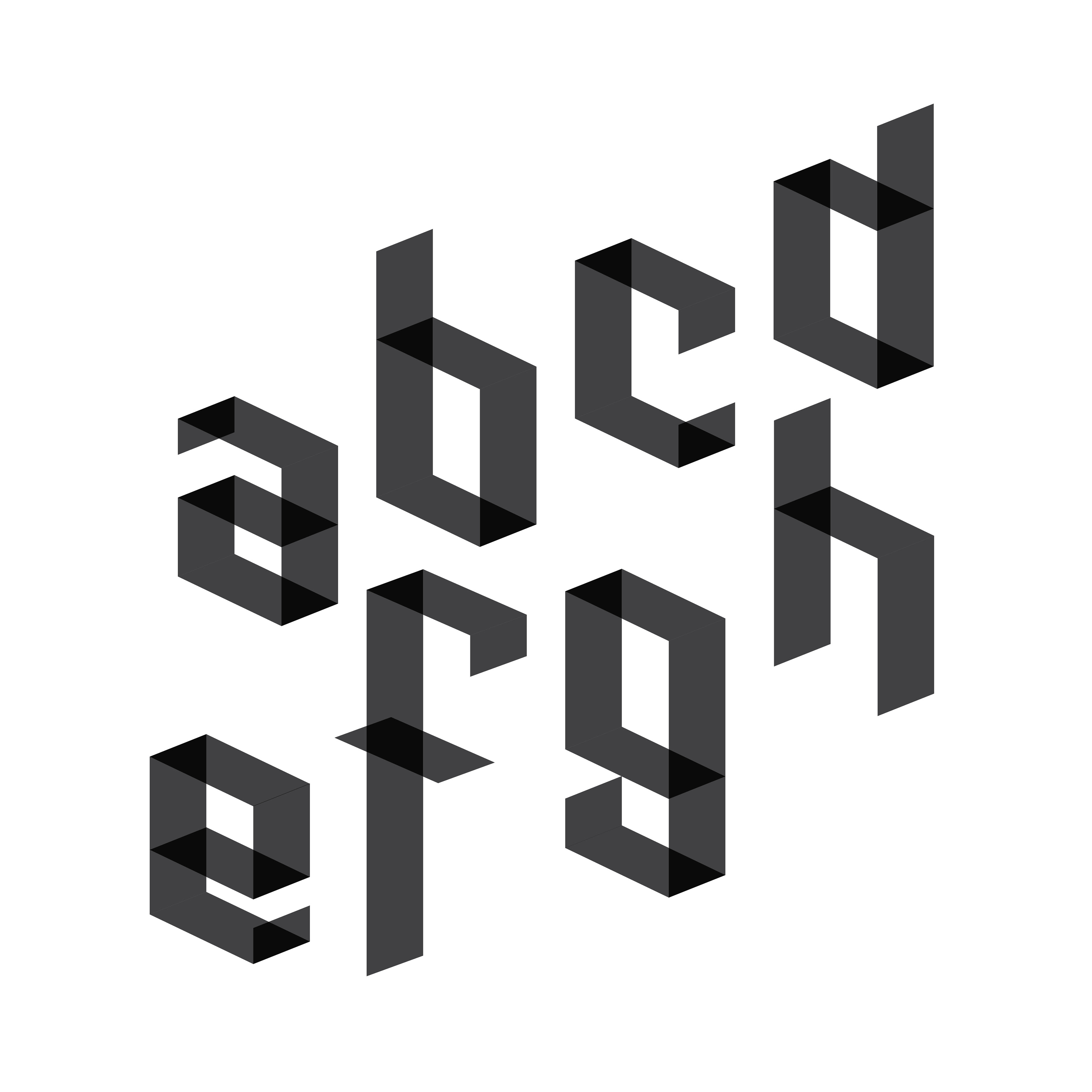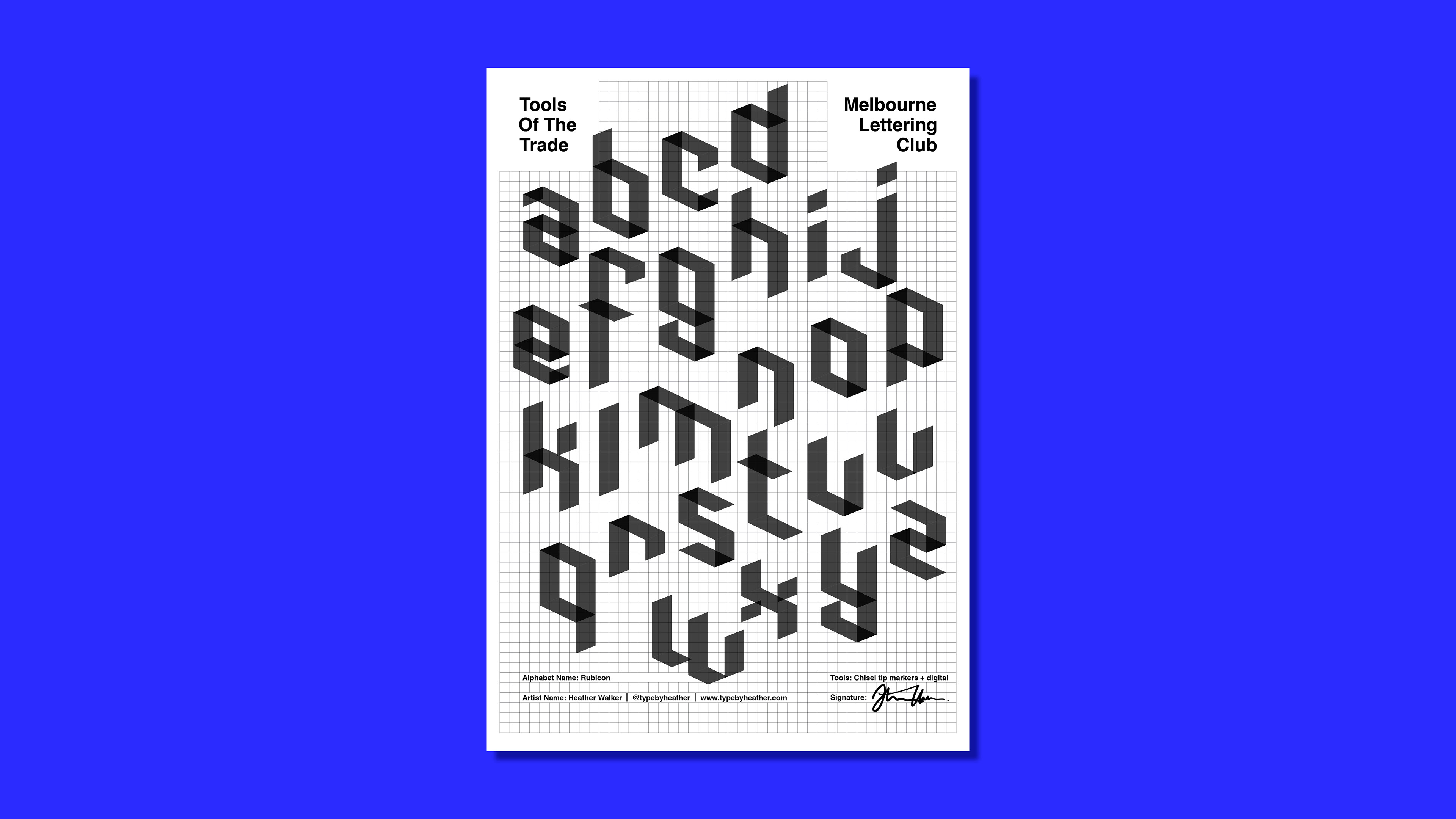
Tools Of The Trade is a type and lettering exhibition hosted by the Melbourne Lettering Club. The theme of the first exhibition was chisel tip tools.  I developed this blackletter style alphabet using a chisel tip marker pen and then further editing digitally.